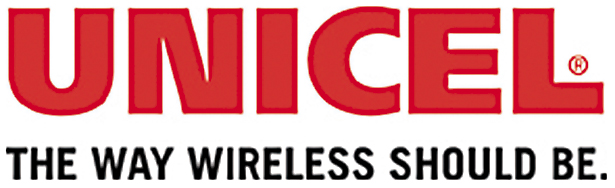
Unicel logo, anyone know the font?
does anyone know the font used in the unicel logo and tage line? Looks like a lot of things but not too sure what it is. Thanks
I have the logo vectorized, but the tagline used to say "part of life here" in a really choppy font...so the tagline is new and it looks to me like Franklin Condensed?
Unicel is Frutiger 95.
Best guess on the tag line is Trade Gothic Bold.
Thanks Fred and Jen for the info and thanks Fred for fixing .jpeg. It came like that and I missed that it wasn't RGB. I thought it was a Frutiger but I only have 65 and 75. The N didn't look right to me. I have to get this cut as a 48" high letter (the Unicel) and was hoping to outsource it to Gregory as a off the rack font instead of a graphic. It will save my customer a ton of money if I can do that. Thanks for the help.